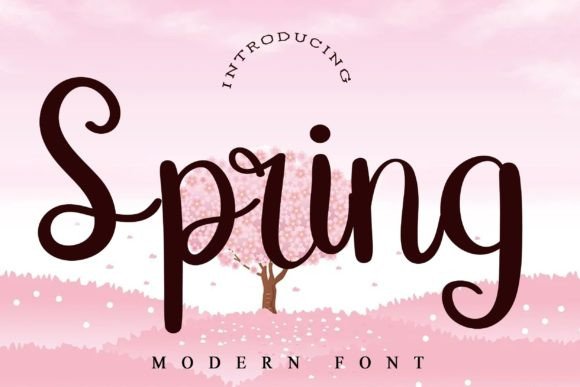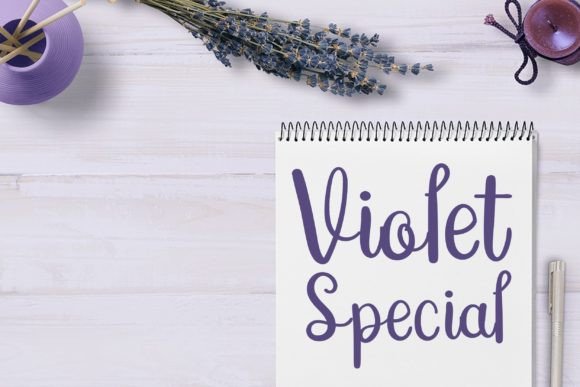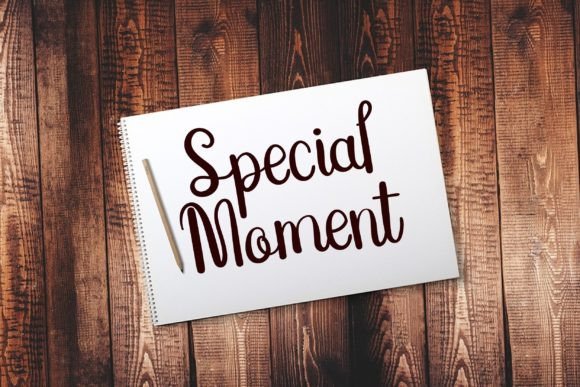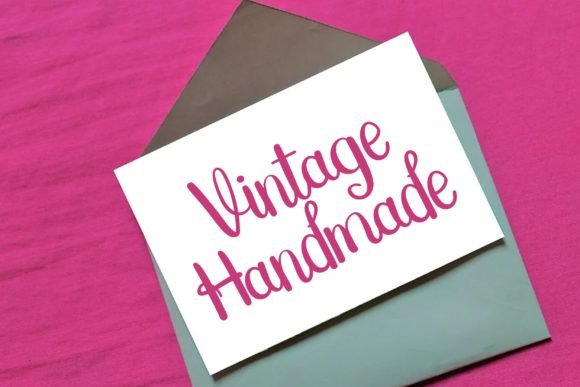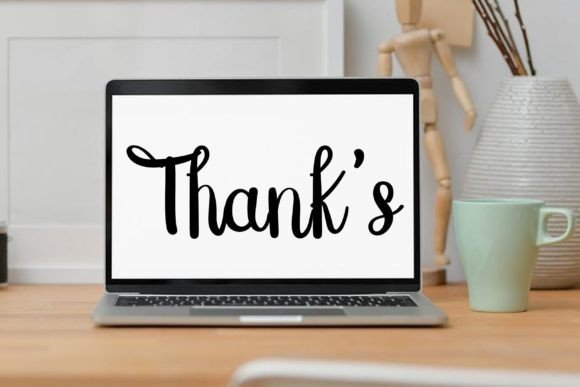
Spring Font
About Spring Font
“Spring” is a font that breathes freshness and beauty into your design endeavors. Tailored for a variety of purposes, including YouTube banners, cover logo mockups, wedding invitations, ID cards, flyers, and crafts, it brings a touch of vibrancy to your projects. This font isn’t just a typographic choice; it’s a catalyst for progress and development in your business.
With its fresh and beautiful aesthetic, “Spring” becomes a versatile tool, adding a dynamic quality to your designs. Imagine the impact it can have on your YouTube banners, infusing them with a lively and engaging feel. Picture the elegance it lends to wedding invitations, the professionalism it brings to ID cards, and the eye-catching allure it provides to your flyers.
The simplicity and uniqueness of “Spring” are key attributes that make it stand out. In the world of design, where clarity and distinctiveness matter, this font offers a straightforward yet captivating visual language. It becomes a signature element in your creations, leaving a lasting impression on your audience.
Moreover, the use of “Spring” goes beyond its aesthetic appeal. It is positioned as a font that not only enhances the visual appeal but also contributes to the progress and development of your business. Its adaptability across different design purposes showcases its versatility, making it a valuable asset in your design toolkit.
As you incorporate “Spring” into your projects, envision the positive impact it can have on your brand identity and overall business growth. Let it be the simple yet unique element that sets your designs apart, making them memorable and effective. “Spring” is more than just a font; it’s a partner in your creative journey, bringing a breath of fresh air to your design endeavors.